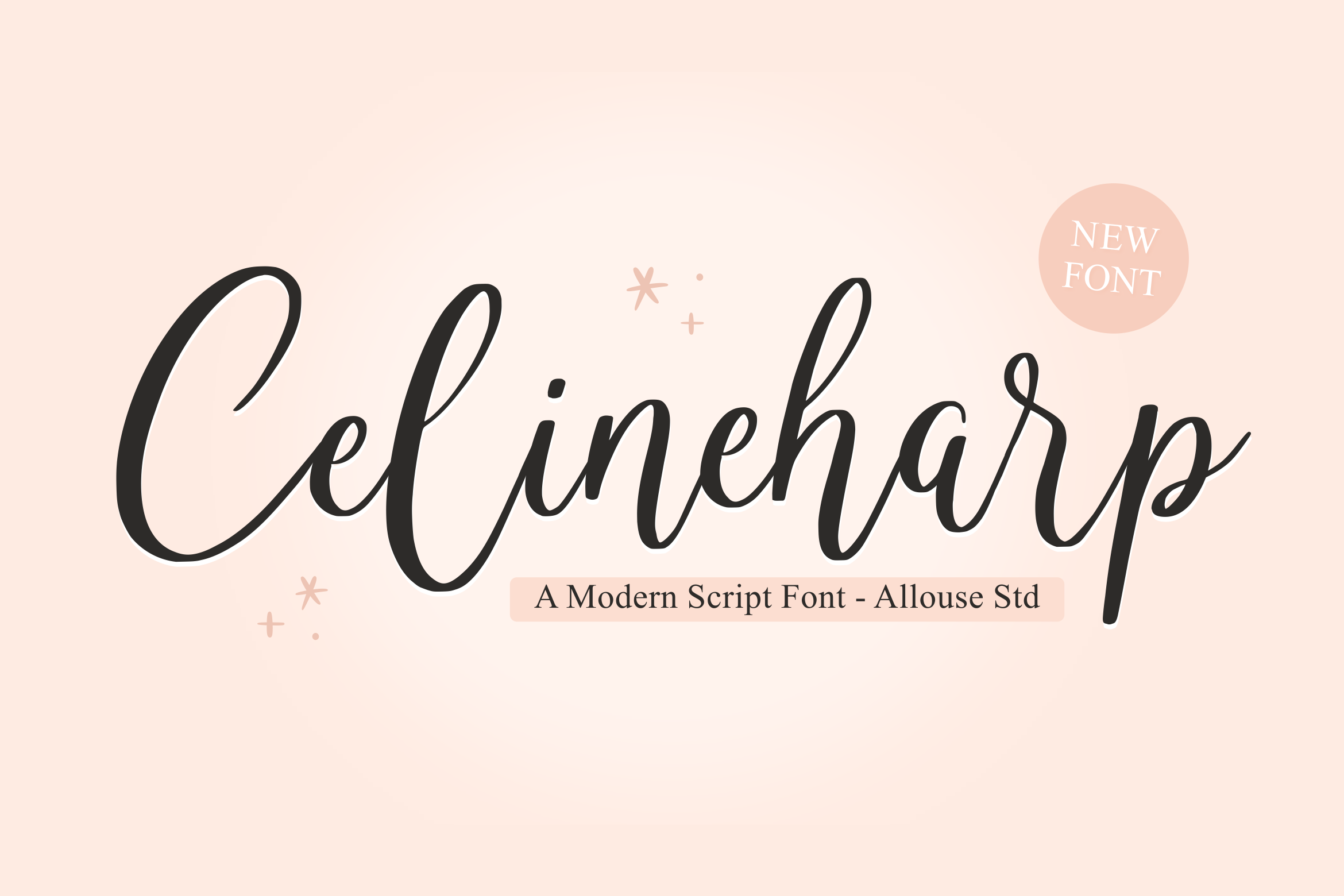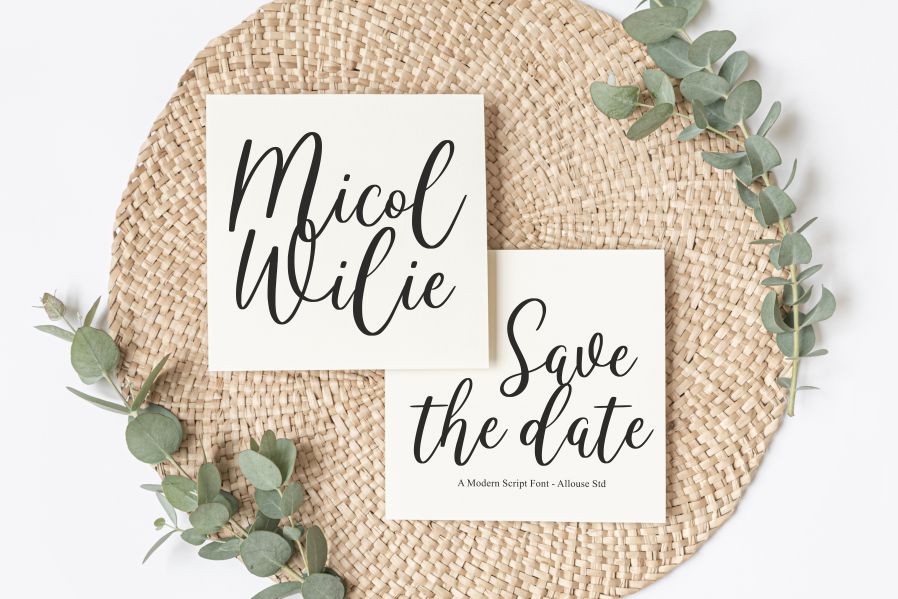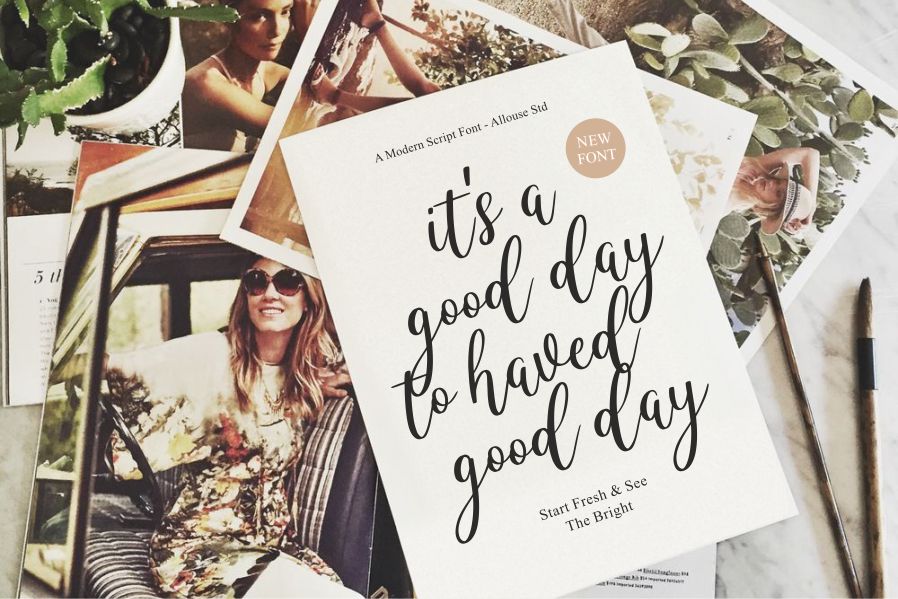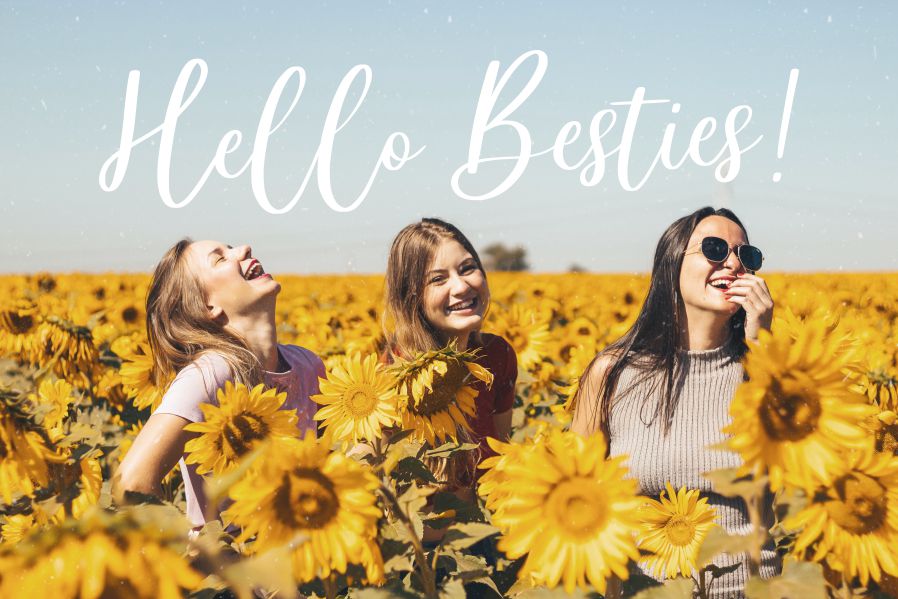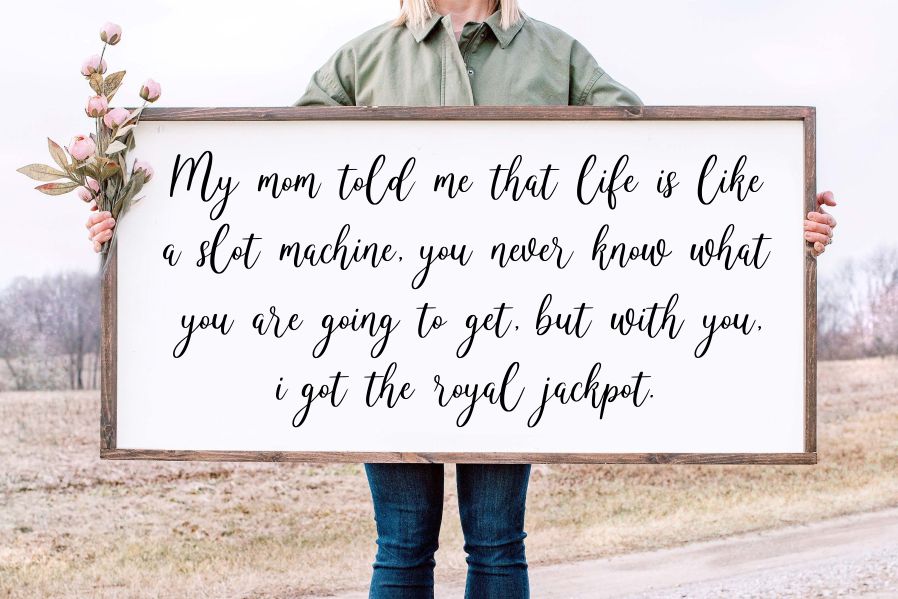
Celineharp Font
Celineharp Script Font
This font is perfect for product packaging, branding project, magazines, social media, weddings, or just used to express words above the background.